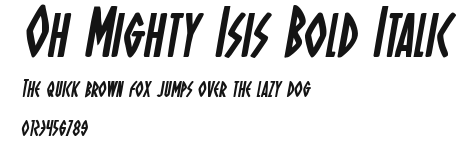
• Font Name: Oh Mighty Isis Bold Italic
About Oh Mighty Isis Bold Italic.ttf
Oh Mighty Isis Bold Italic.ttf is a modern, elegant sans-serif font designed for ultimate readability and visual harmony. Perfect for branding, headlines, web design, and print materials.